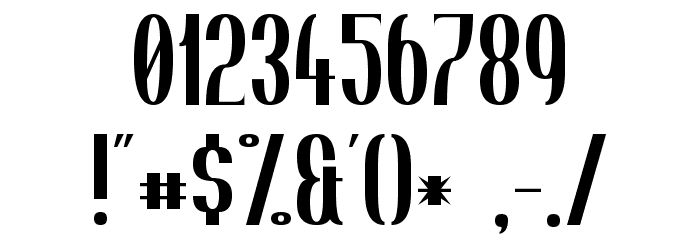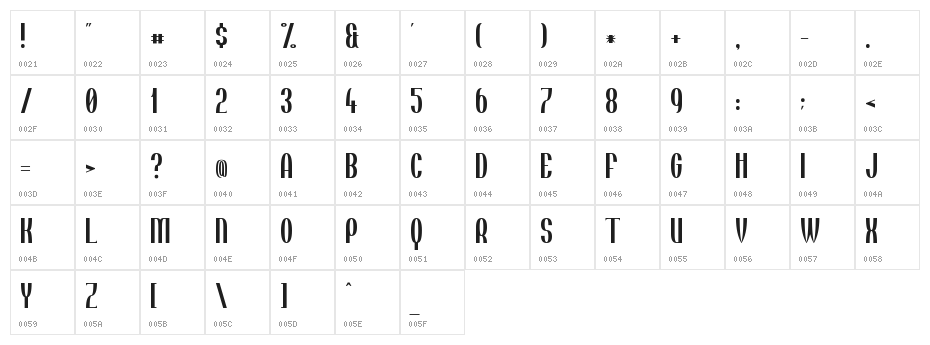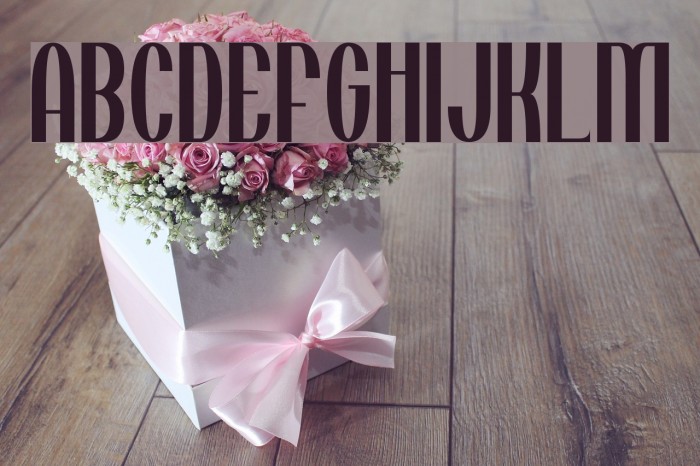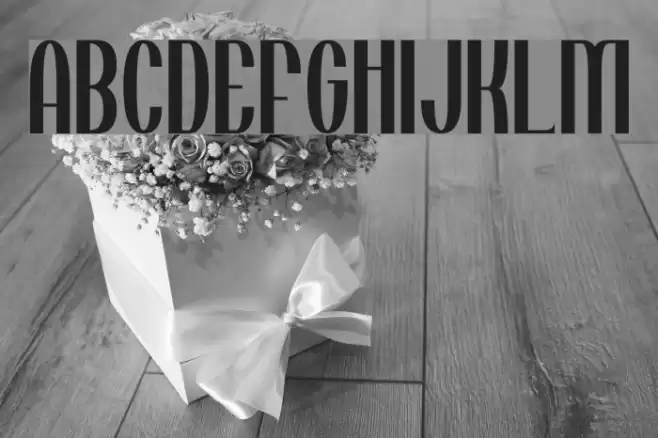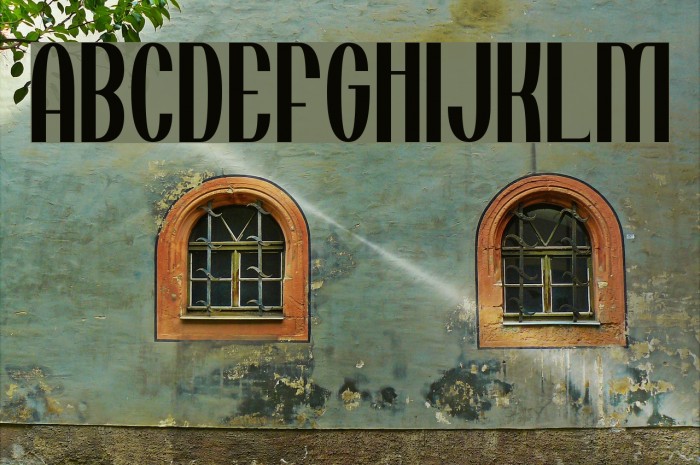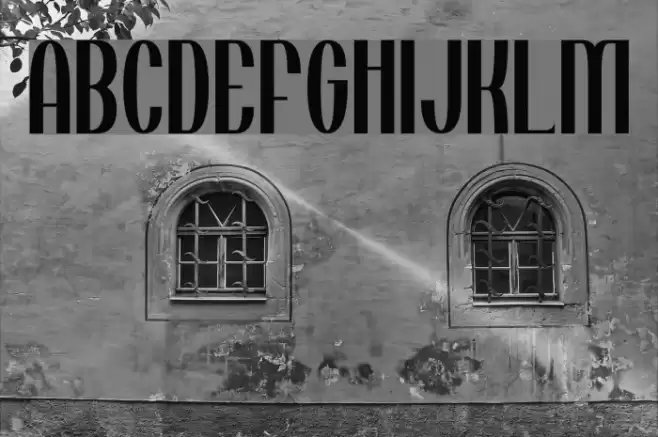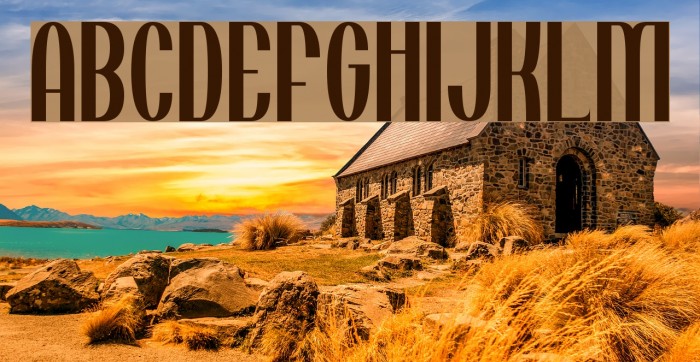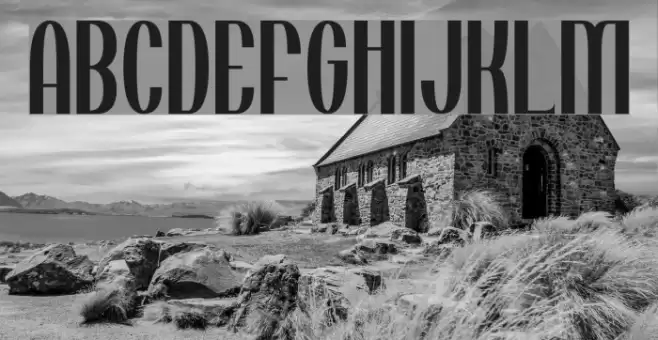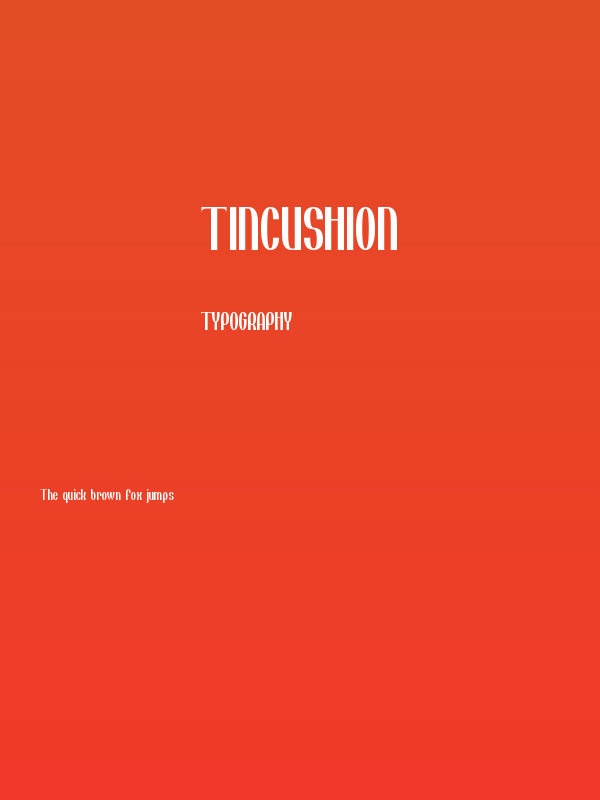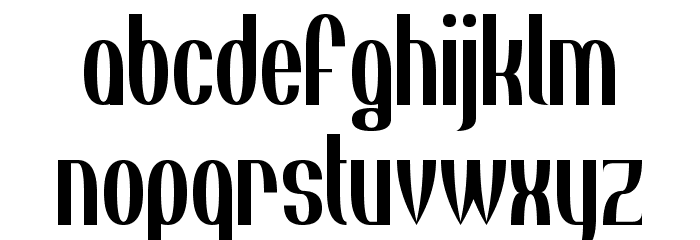
Tincushion Font
Tincushion Description
This font features a bold and striking design with high contrast between thick and thin strokes, creating a dramatic and eye-catching appearance. The characters are tall and narrow, giving a condensed look that emphasizes verticality. The uppercase letters have a strong presence, while the lowercase letters maintain a consistent style with slightly rounded edges. The numerals are distinct and align well with the overall aesthetic. Special characters are creatively designed, adding to the font's unique personality. This font is ideal for making a statement in any design project.
| Proposed Projects | Ideal for headlines, posters, branding, and any project requiring a strong visual impact. |